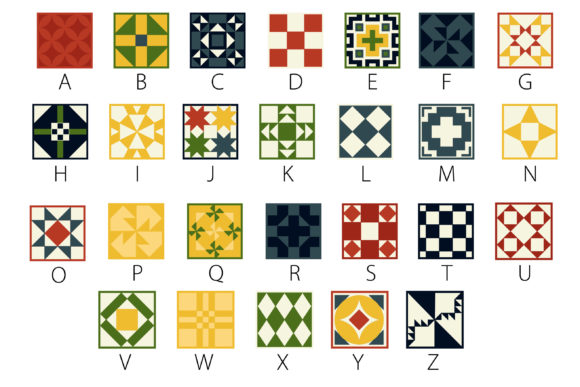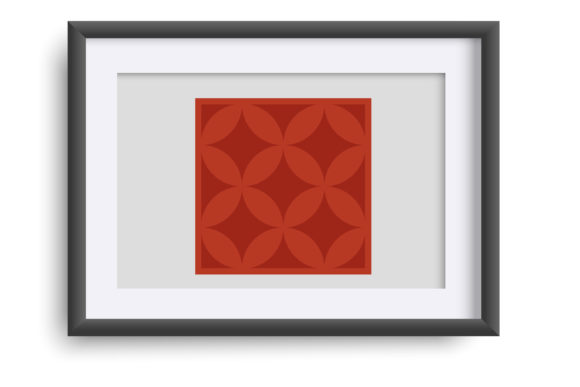
About Amish Quilt Font
This full-color dingbat font showcases simple quilt patterns that harmonize perfectly with the Farmhouse and Farmhouse Too Color Fonts.
With this full-color dingbat font, you can enhance your designs with the cozy and rustic feel of farmhouse aesthetics. Whether you’re working on projects related to home decor, crafts, or any design that calls for a touch of traditional and rustic appeal, these simple quilt patterns will perfectly complement the Farmhouse and Farmhouse Too Color Fonts.